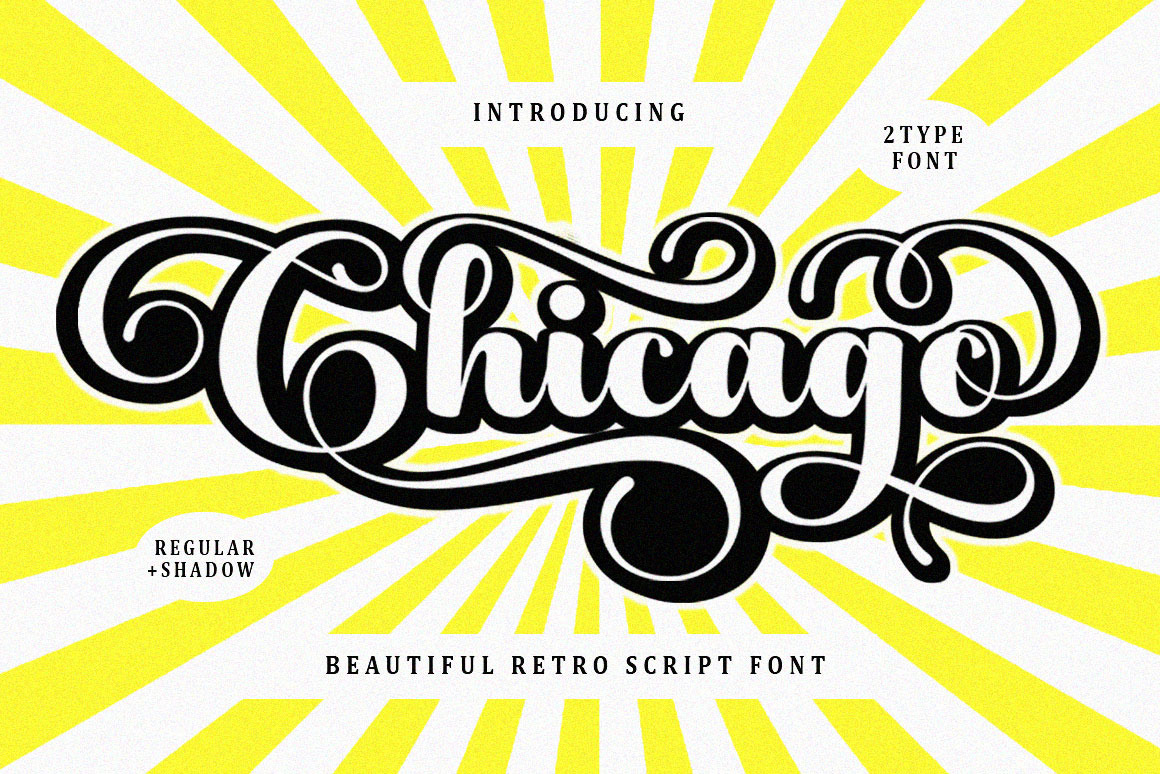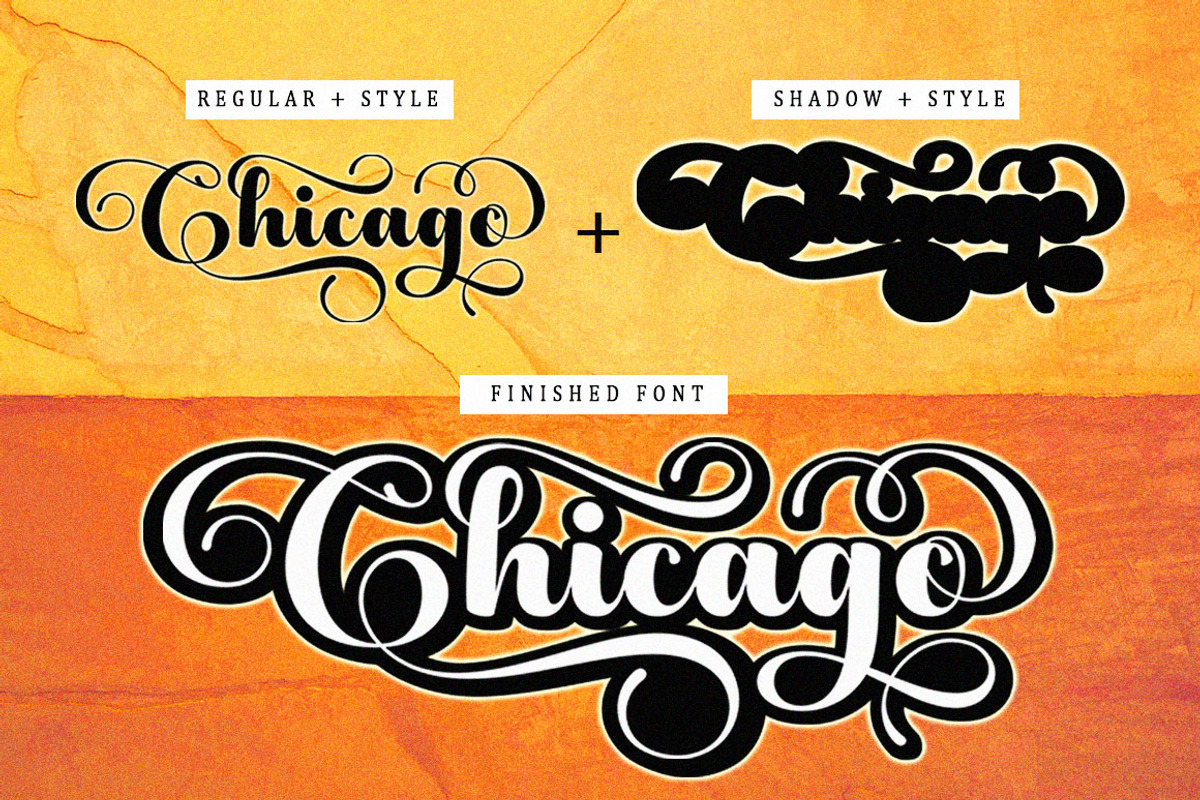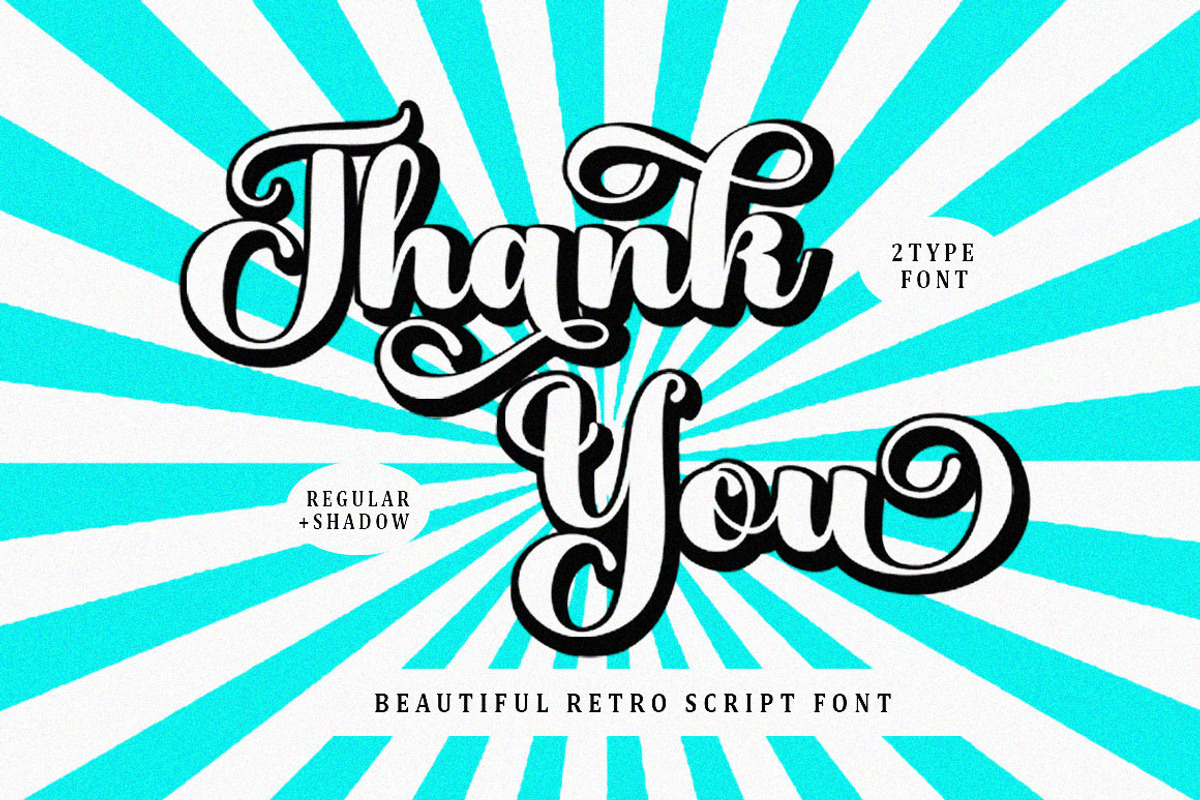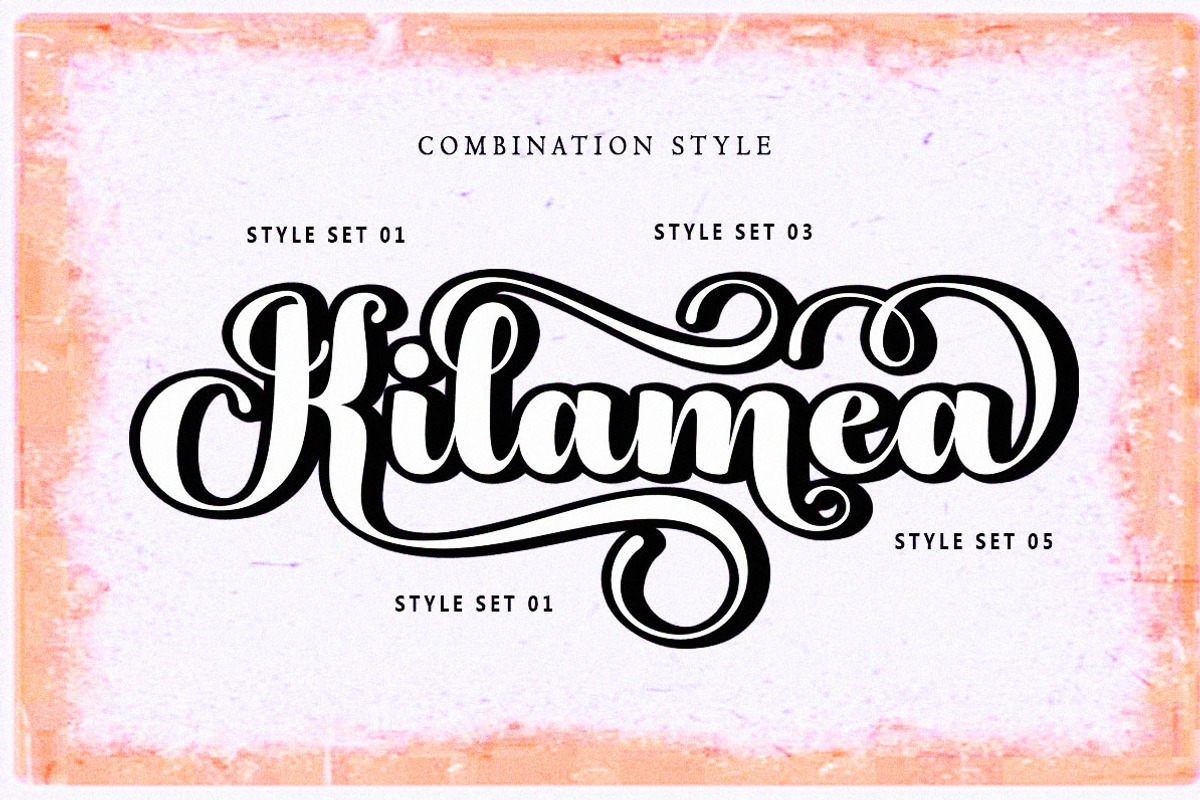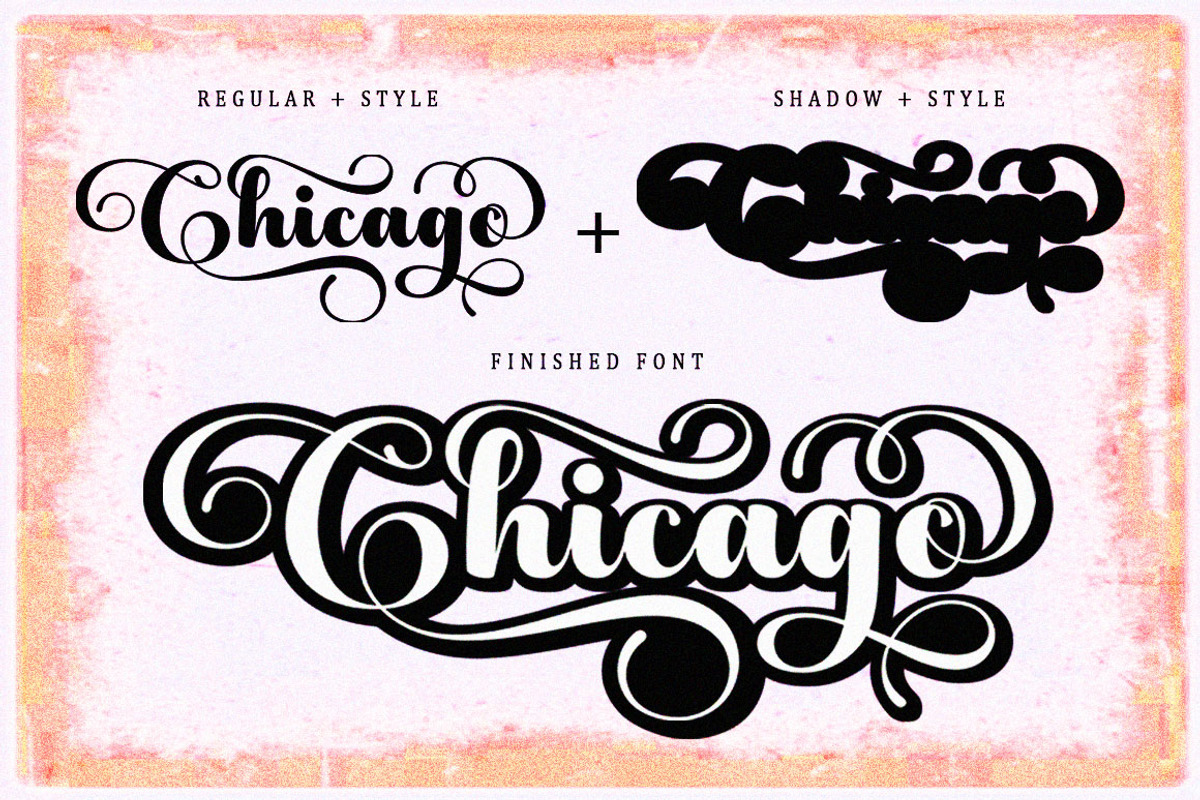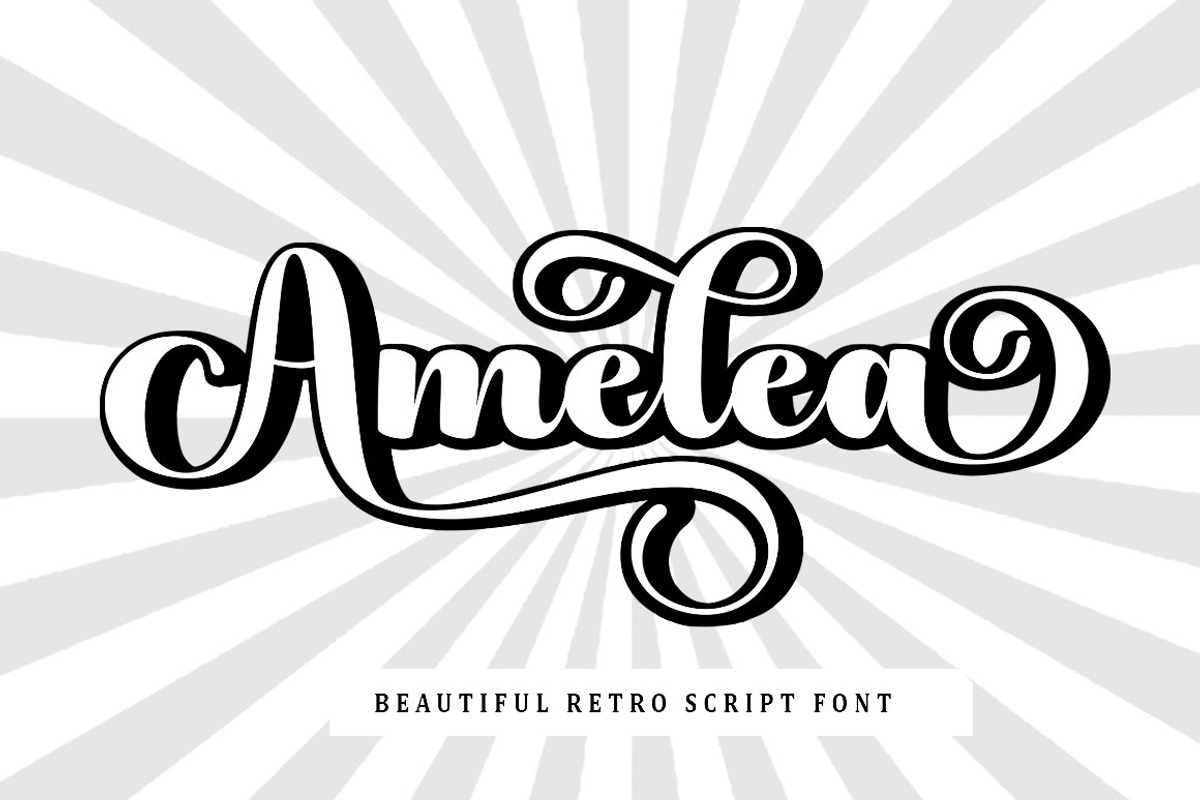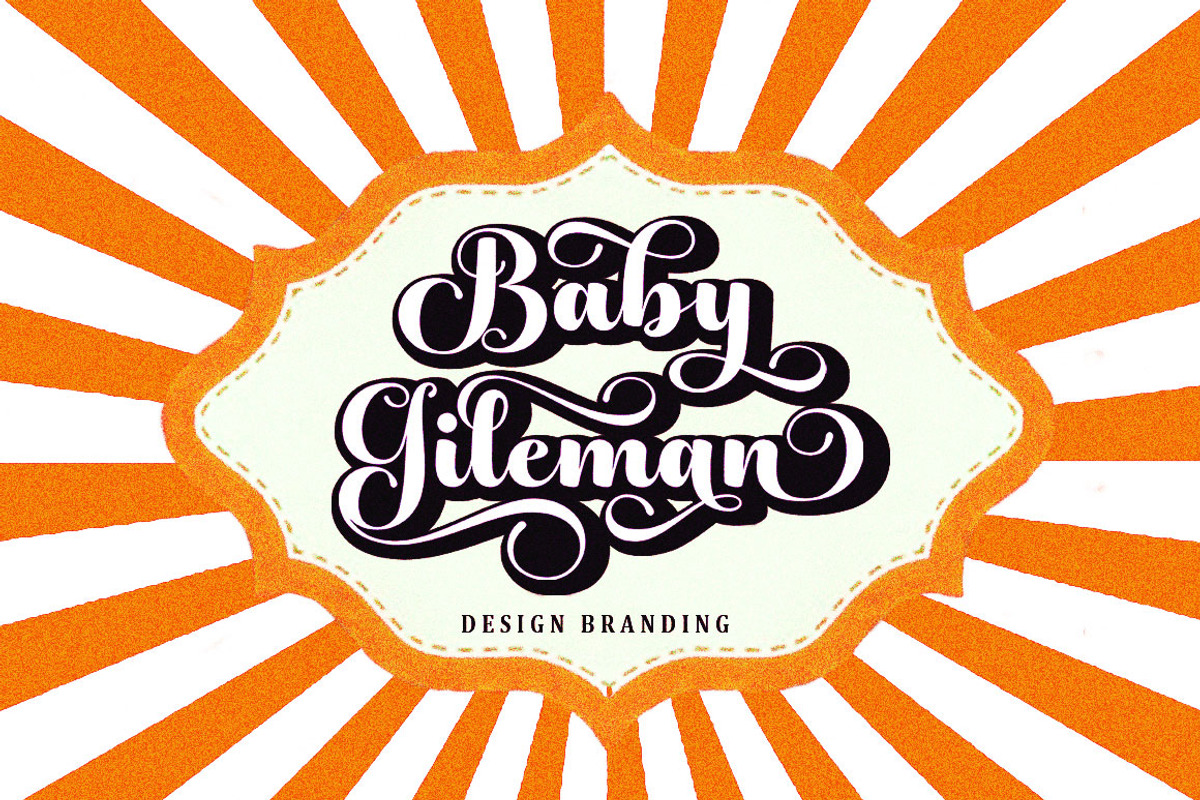
Chicago Font
Introduce, Chicago. A bold retro script that will take you back to the spirit of adding to your designs. This typeface has an extrude version so you can create a retro effect font easily. This font is very suitable for application, especially on logos, and various other formal forms such as invitations, labels, logos, magazines, books, greeting/wedding cards, packaging, fashion, make up, stationery, novels, labels or all kinds of things. advertising purposes.